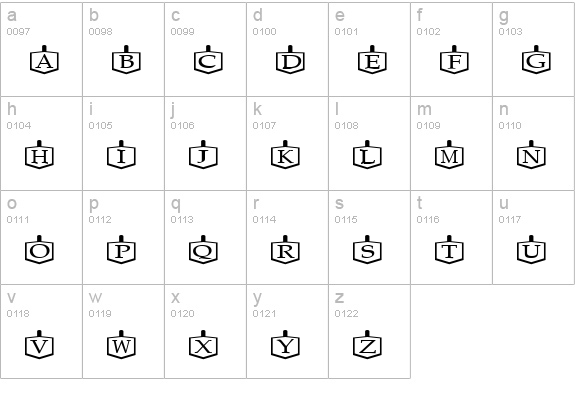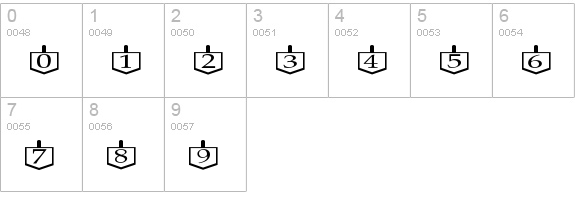
Etikette Font Details
Etikette font is a sophisticated and elegant typeface that exudes charm and style. With its delicate curves and graceful letterforms, Etikette adds a touch of refinement to any design project. Whether used for invitations, branding, or editorial design, this font is sure to make a lasting impression. What's even better is that Etikette font is completely free to download at FontsMarket.com. So, you can elevate your creations without breaking the bank. Don't miss out on this stunning typeface that will bring a touch of class to your designs. Download Etikette font today and let your creativity shine!